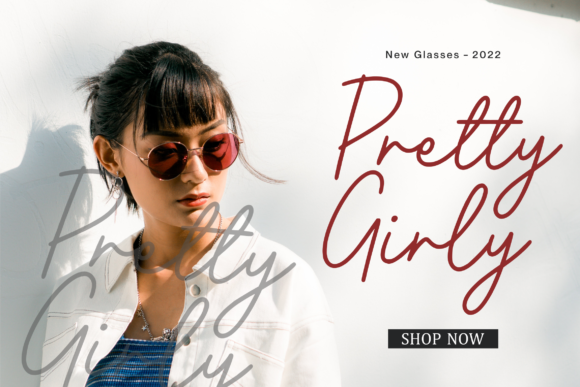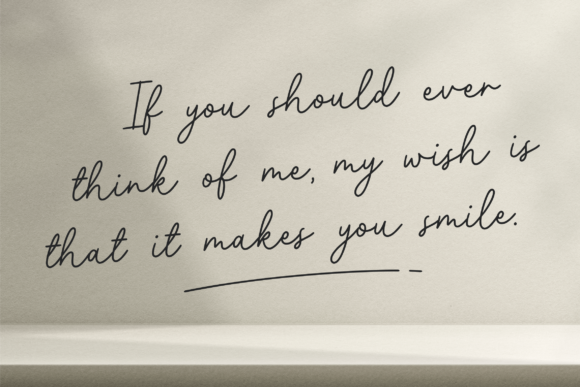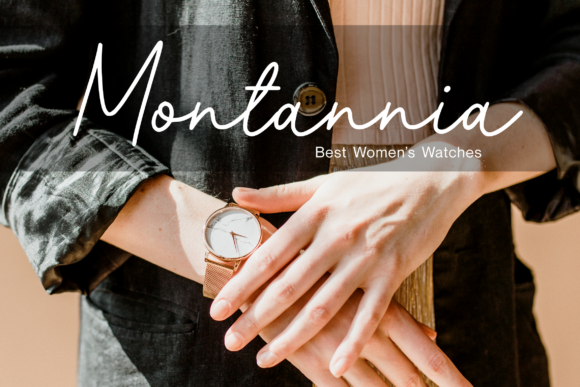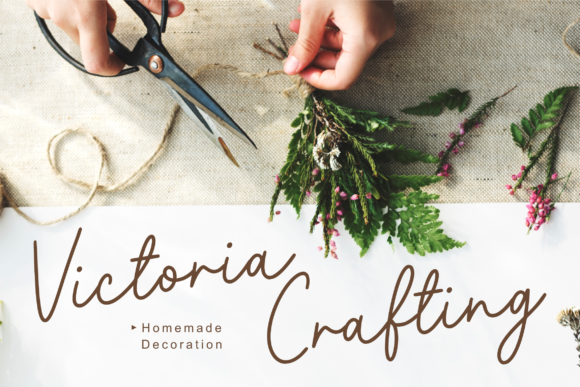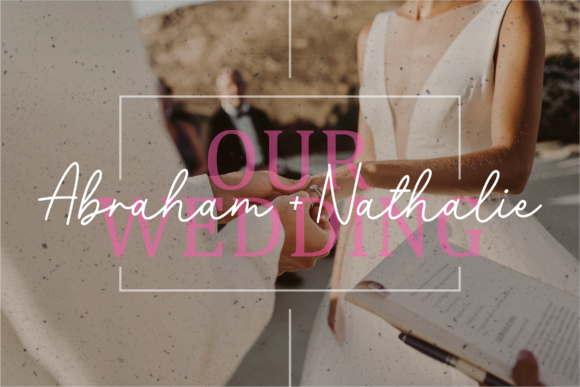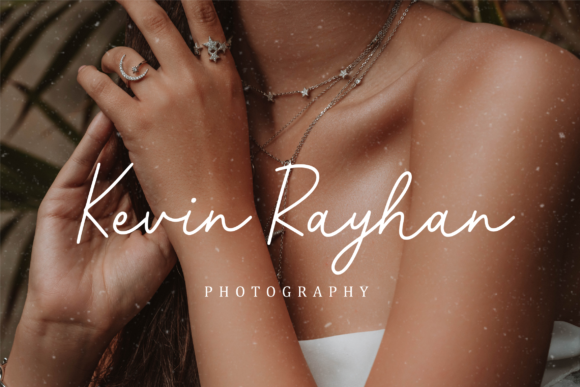
Introducing Amrinnatica Font: Elevate Your Designs with Elegance and Class
In the world of typography, fonts play a crucial role in conveying the tone and personality of a design. For crafters and designers seeking to add a touch of sophistication and whimsy to their projects, Amrinnatica Font is an exceptional choice. This sweet and subtle handwritten font is meticulously crafted with great care, ensuring maximum results that exceed expectations.
The Charm of Amrinnatica Font
Amrinnatica Font boasts a unique, elegant quality that instantly elevates any design project. Its subtle yet distinctive style makes it perfect for a wide range of applications, from stationery and branding to digital media and web design. The font’s gentle curves and flowing lines create a soothing visual experience, making it an excellent choice for designs that require a personal touch.
Key Features of Amrinnatica Font
- Handwritten with love: Amrinnatica Font is carefully crafted by hand, giving it a warm, personal feel that’s hard to replicate with generic fonts.
- Elegant and classy: The font’s sophisticated style adds a touch of luxury to any design, making it perfect for high-end branding and marketing materials.
- Versatile: Amrinnatica Font is suitable for a wide range of design projects, including print and digital media, web design, and more.
- Easy to read: The font’s clear, flowing lines ensure excellent readability, even at smaller sizes.
Use Cases for Amrinnatica Font
Amrinnatica Font’s versatility makes it an excellent choice for various design projects, including:
- Stationery and invitations: Add a touch of elegance to your wedding invitations, greeting cards, and other stationery with Amrinnatica Font.
- Branding and packaging: Use Amrinnatica Font to create sophisticated branding materials, such as logos, labels, and packaging.
- Digital media: Amrinnatica Font is perfect for e-books, blogs, and social media graphics, adding a personal touch to your online presence.
- Web design: Incorporate Amrinnatica Font into your website design to create a cohesive, elegant visual experience.
Tips for Using Amrinnatica Font
To get the most out of Amrinnatica Font, consider the following tips:
- Pair with complementary fonts: Combine Amrinnatica Font with other fonts that complement its elegant style, such as serif or sans-serif fonts.
- Experiment with colors: Amrinnatica Font looks great in a variety of colors, so don’t be afraid to experiment and find the perfect hue for your design.
- Pay attention to spacing: Ensure that your design has sufficient spacing to allow Amrinnatica Font to breathe and maintain its elegance.
Amrinnatica Font is a beautiful, elegant handwritten font that can elevate any design project. Its subtle yet distinctive style makes it perfect for crafters and designers seeking to add a touch of sophistication and whimsy to their work. With its versatility, ease of use, and excellent readability, Amrinnatica Font is an excellent choice for a wide range of design applications. So why wait? Discover the charm of Amrinnatica Font and take your designs to the next level.